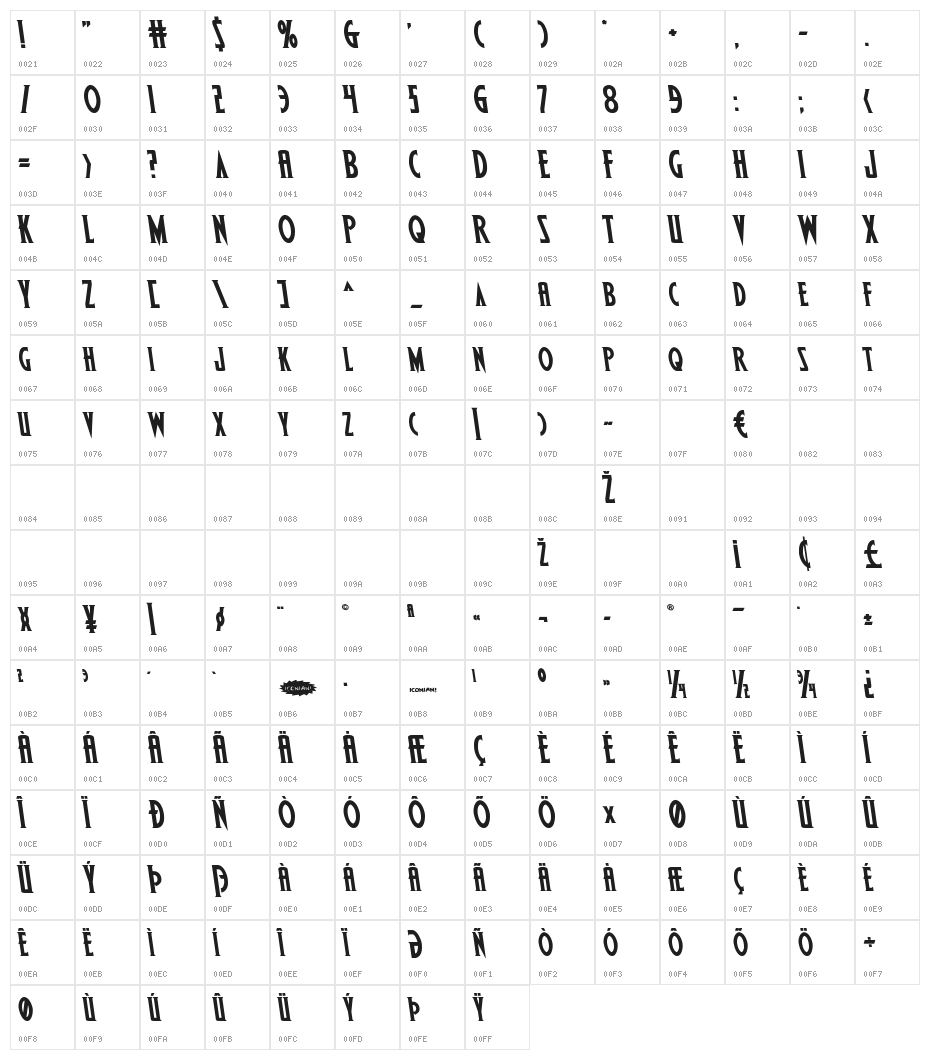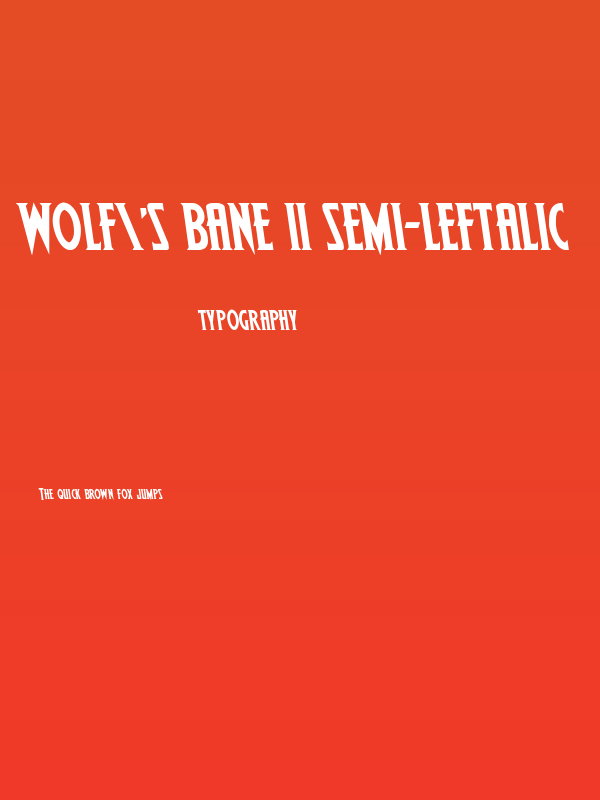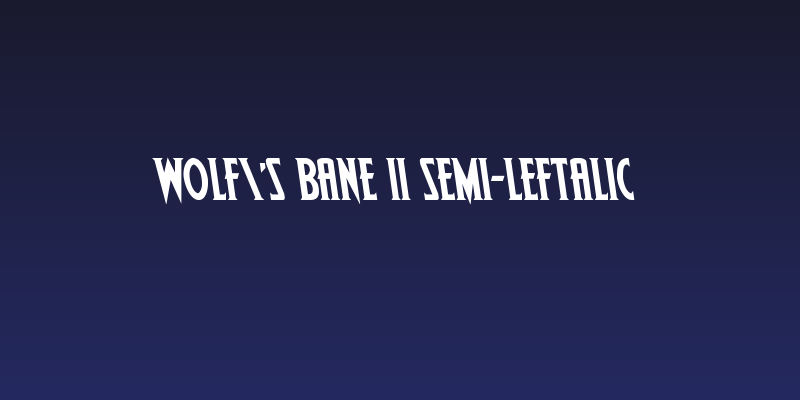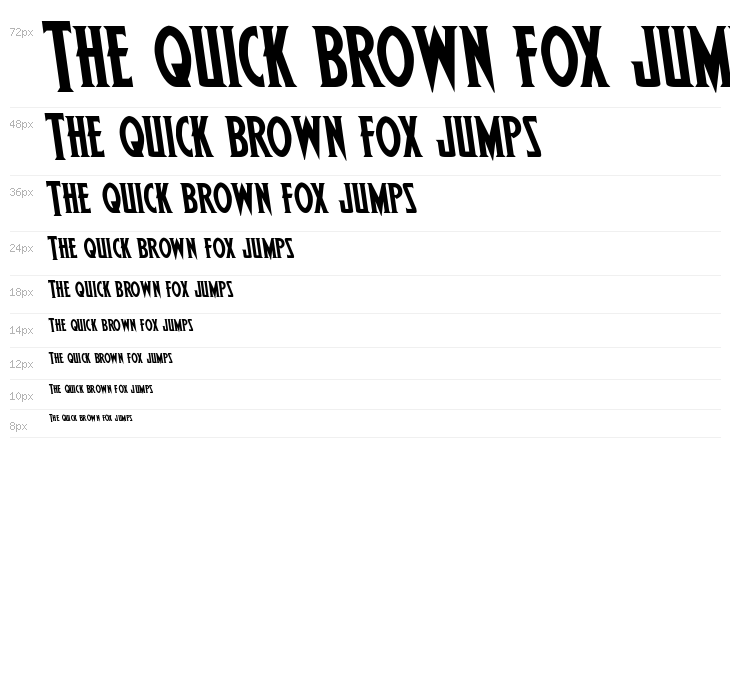
Wolf's Bane II Semi-Leftalic Font
Wolf's Bane II Semi-Leftalic Description
This font features a bold and dynamic design with a distinct leftward slant, giving it a unique and energetic appearance. The characters are sharply angled and have a slightly condensed form, which adds to the overall impact. The uppercase and lowercase letters maintain a consistent style, with exaggerated serifs and a strong presence. The numbers and special characters follow the same design principles, ensuring uniformity across the typeface. This font's boldness and angularity make it stand out, making it suitable for attention-grabbing applications.